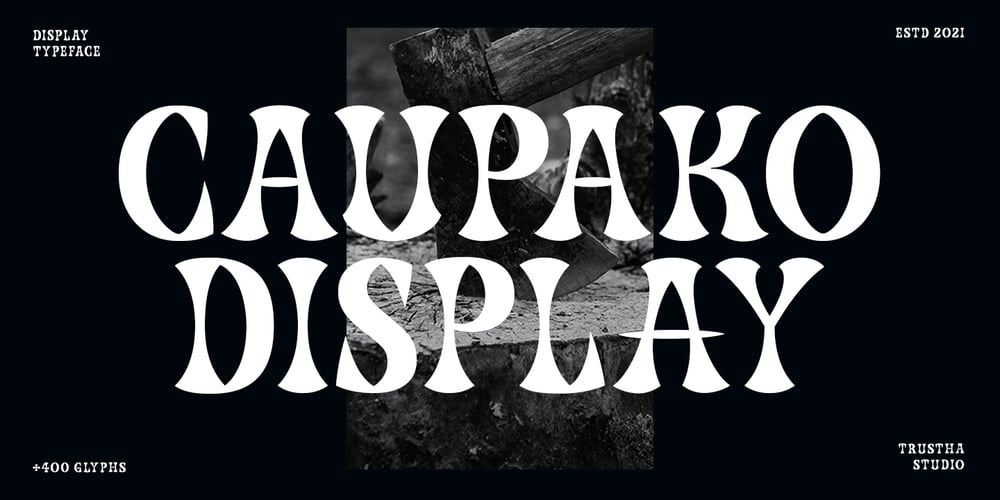
Caupako
Caupako font
Caupako Font Family was designed by Bagas Ardiatma and published by Trustha. Caupako contains 2 styles and family package options. Caupako is a display font. Inspired by the shape of the axe. Nostalgia on the legendary old action film. A young man armed with a deadly axe.Comes in two font styles, regular and oblique. Caupako comes with 400+ glyphs, which also include multilingual languages. It’s perfect for headlines, branding, and many more.